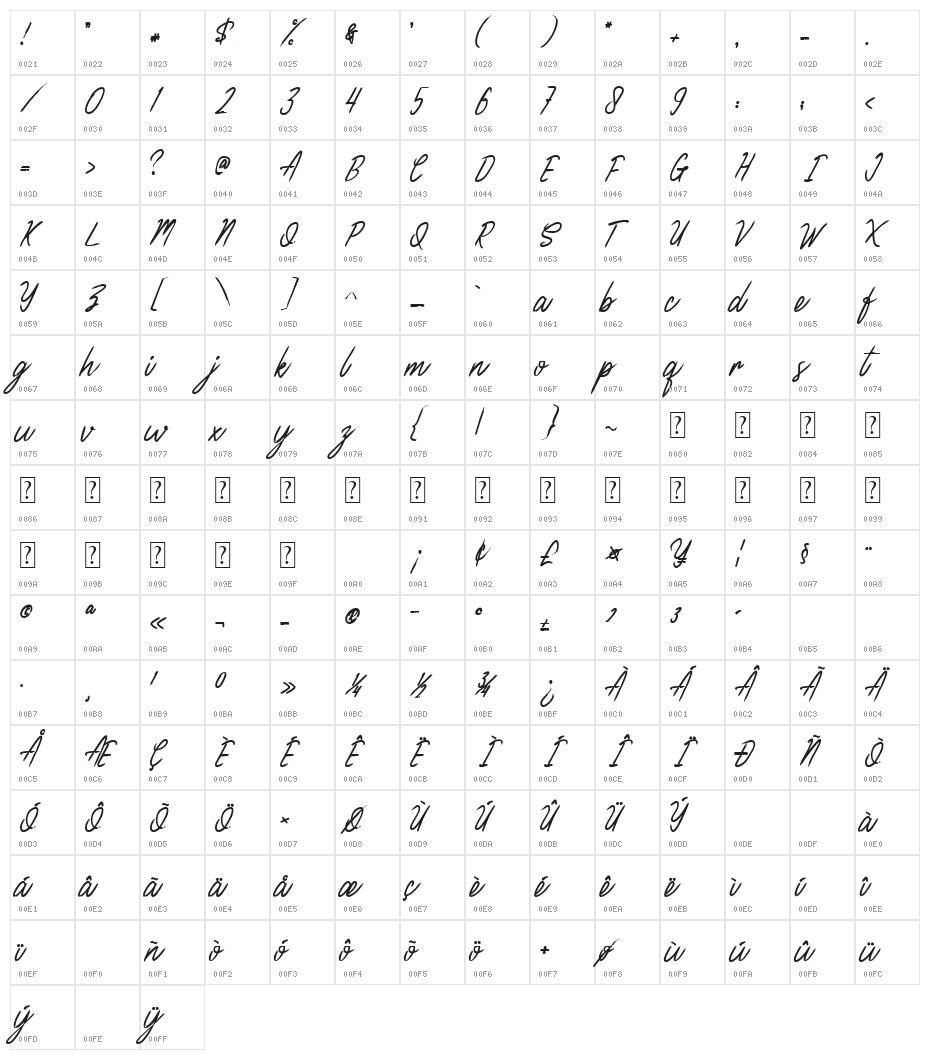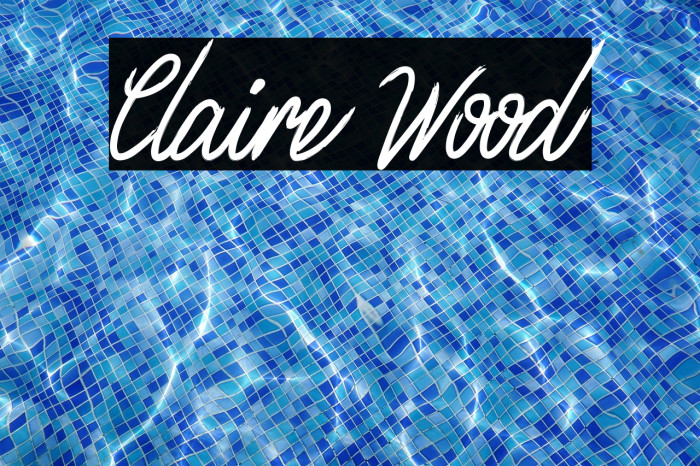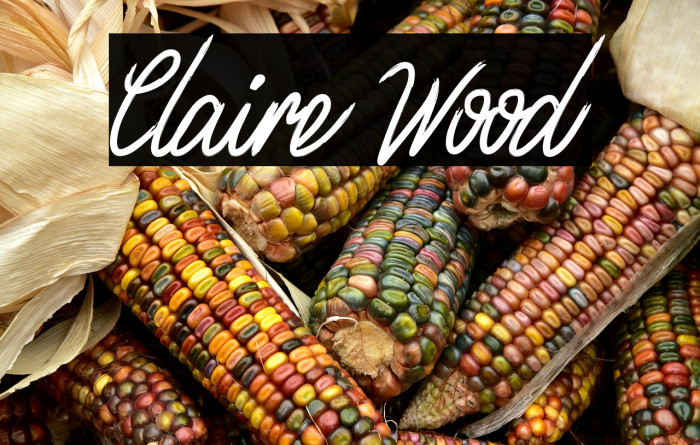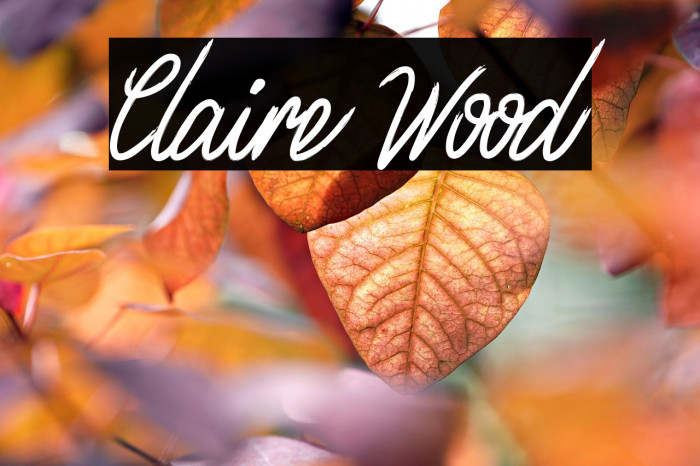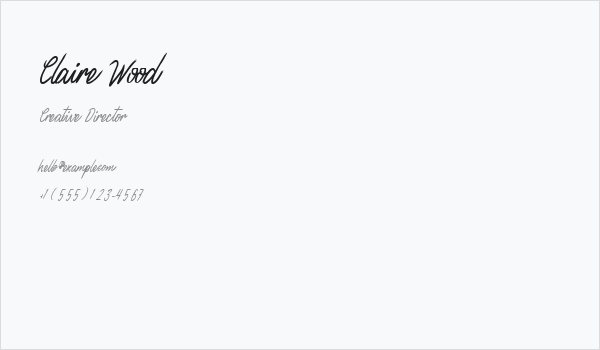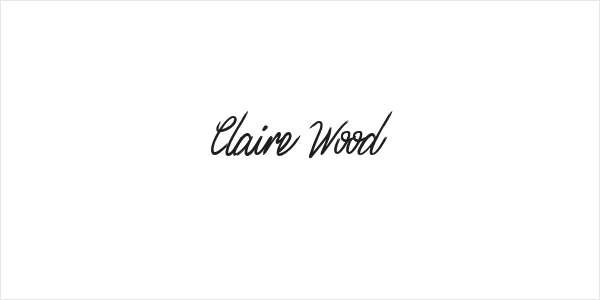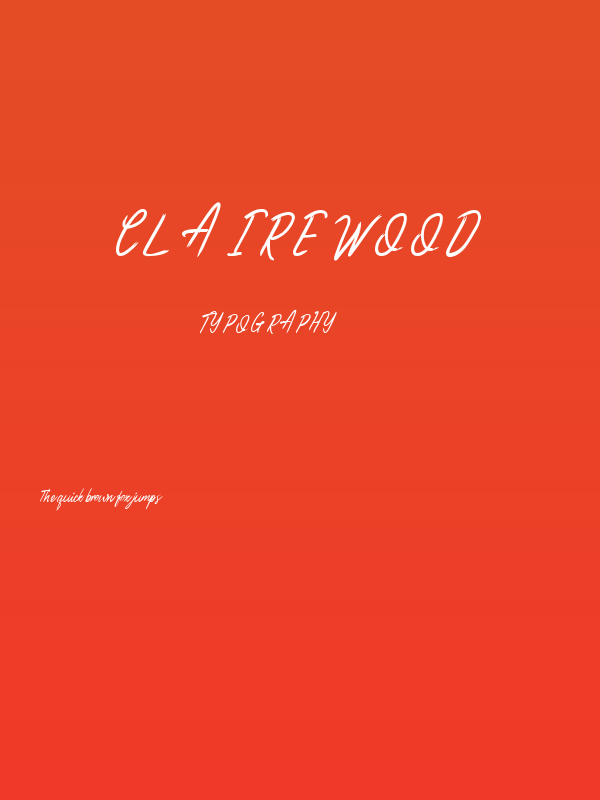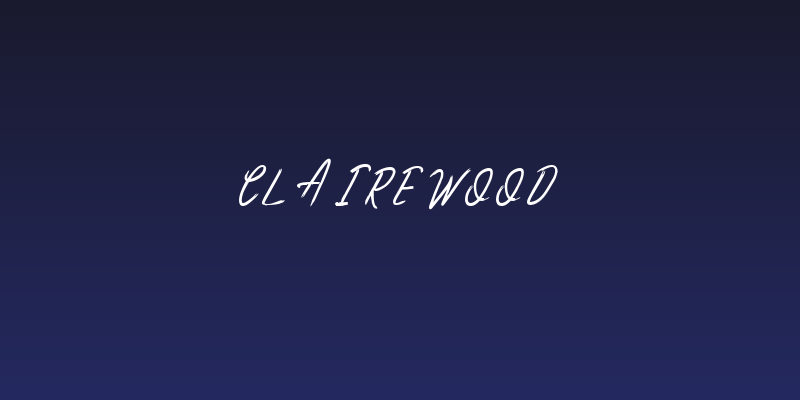
Claire Wood Font
Claire Wood Description
This font features a dynamic and fluid script style, characterized by its elegant, flowing lines and cursive letterforms. The uppercase letters exhibit a graceful slant, while the lowercase letters maintain a consistent rhythm and smooth connections. The numerals and special characters are crafted with the same attention to detail, ensuring a cohesive appearance across all glyphs. The overall design exudes a sense of sophistication and artistic flair, making it suitable for projects that require a touch of elegance and personal expression.
| Proposed Projects | Ideal for wedding invitations, greeting cards, personal branding, and artistic projects. |